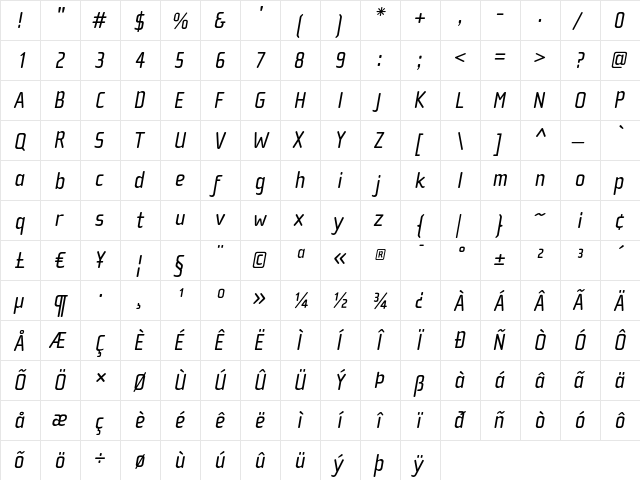
ChollaSans RomanItalic
Design Context for ChollaSans Typeface
ChollaSans offers clean, dependable letterforms without strong stylistic allegiance, making it a practical choice for designers who need flexibility. Its italic angle brings a sense of urgency and motion to the letterforms.
Pro Tip: Use ChollaSans for emphasis, pull quotes, and subheadings where its slanted energy can add rhythm to the layout.